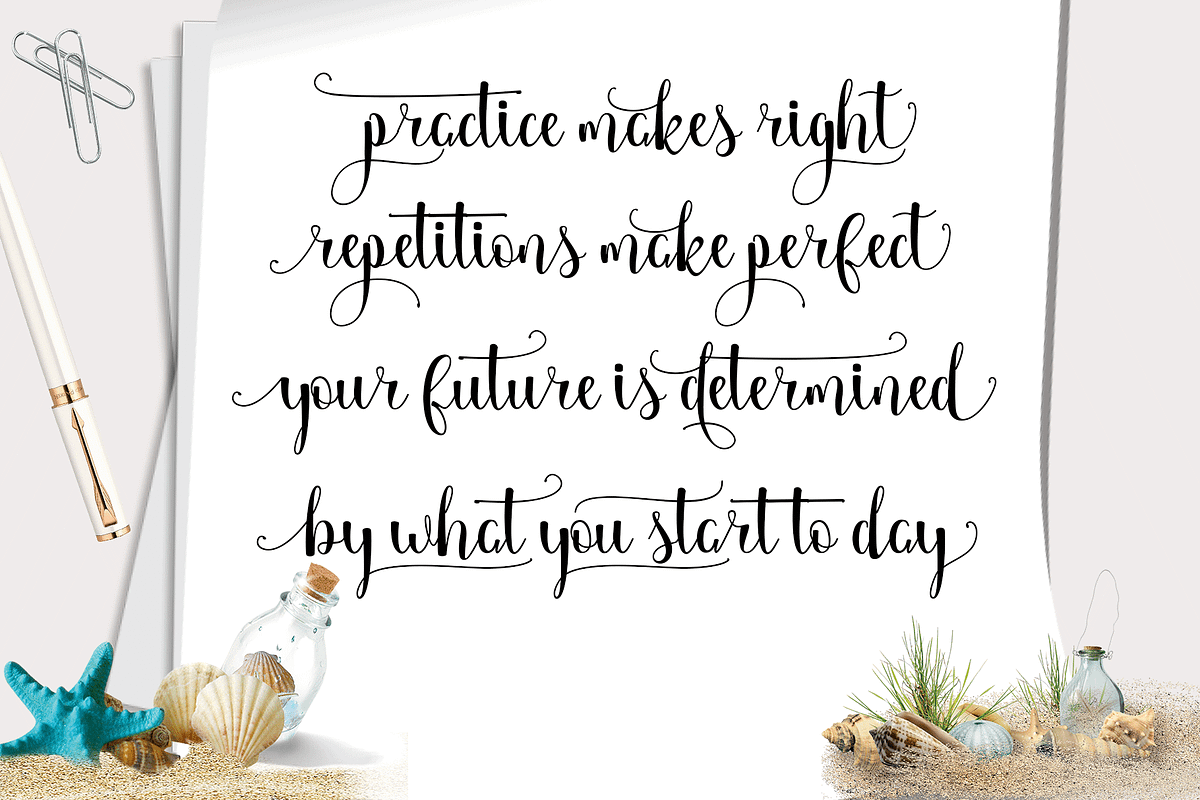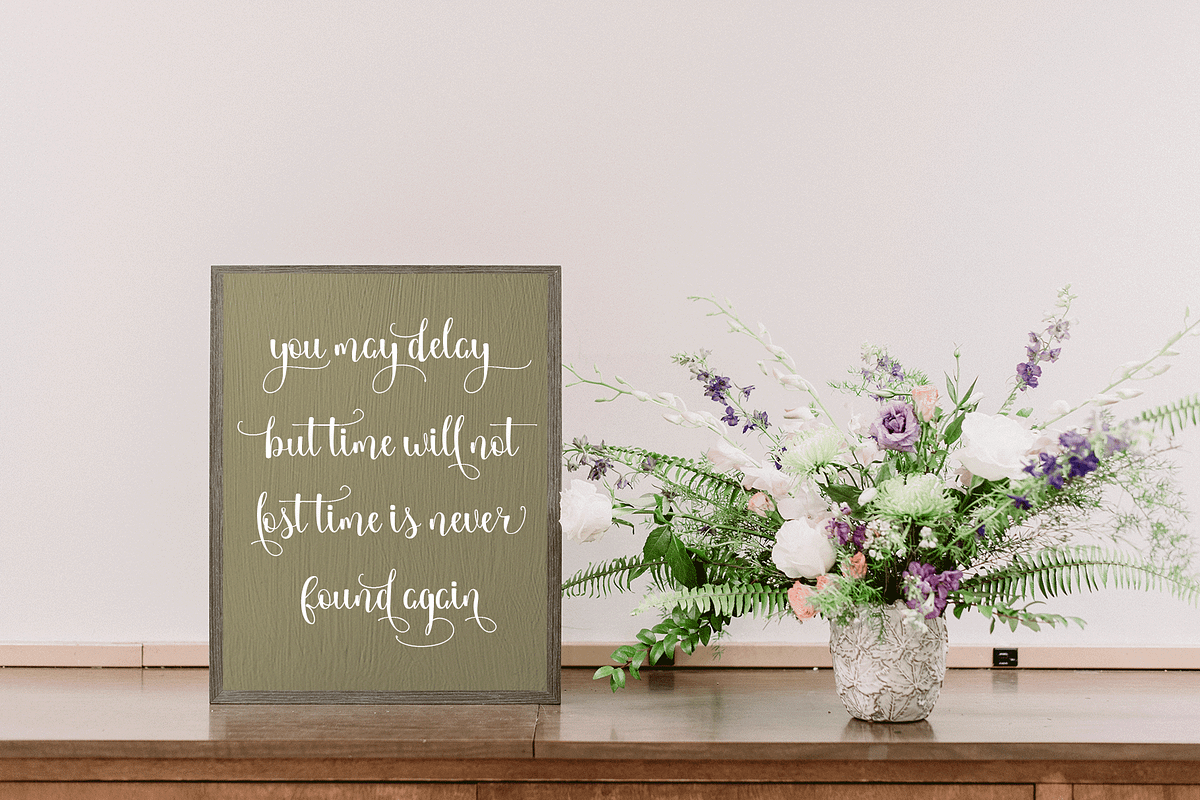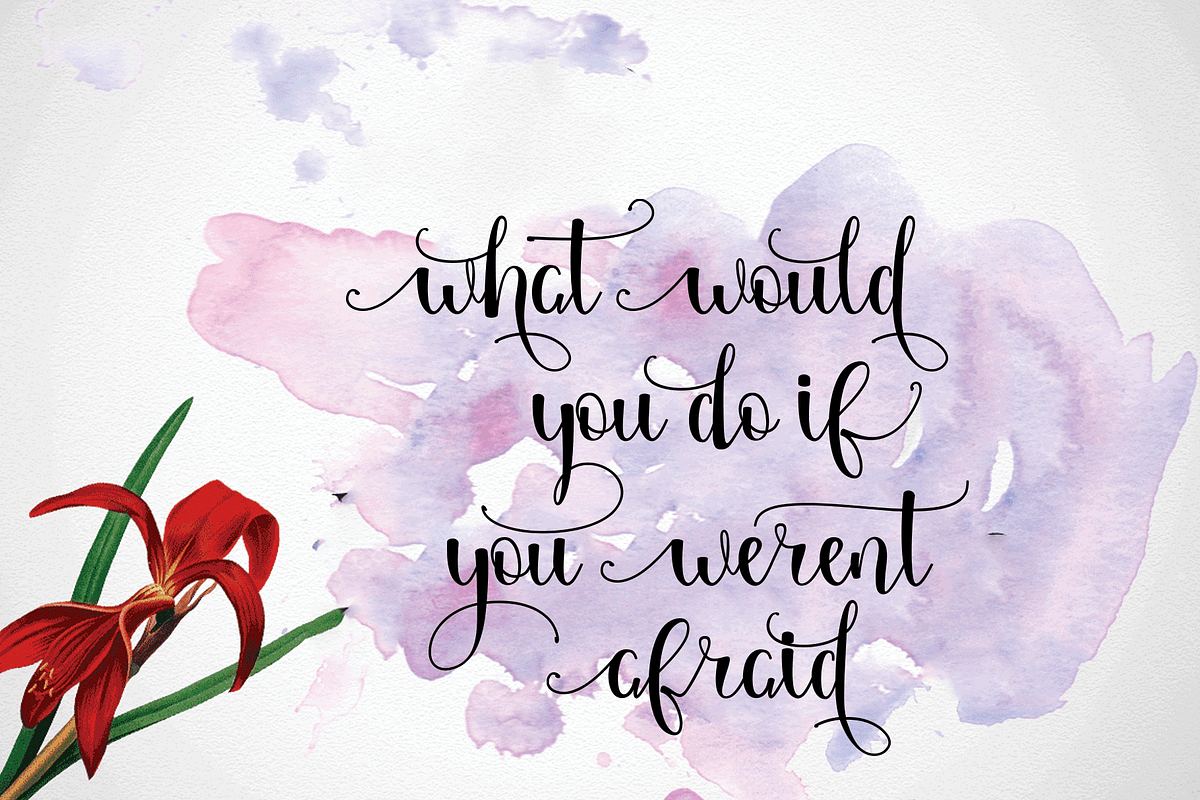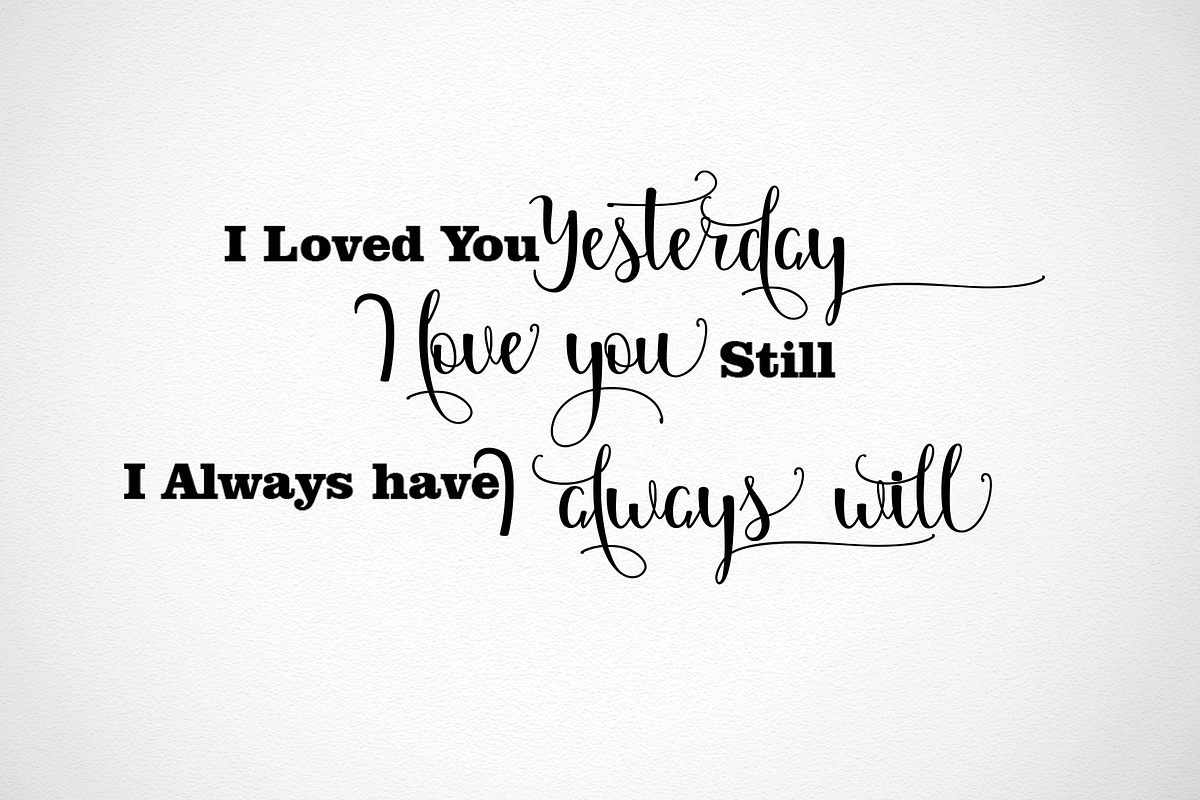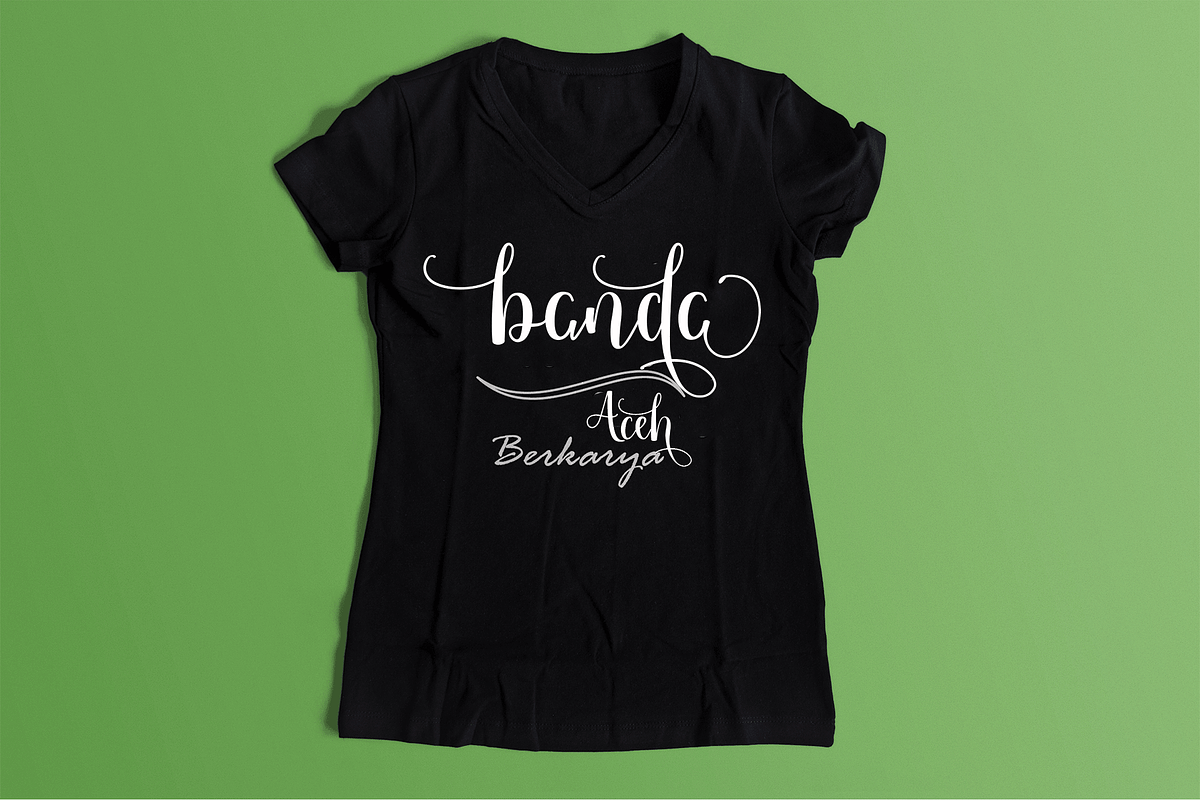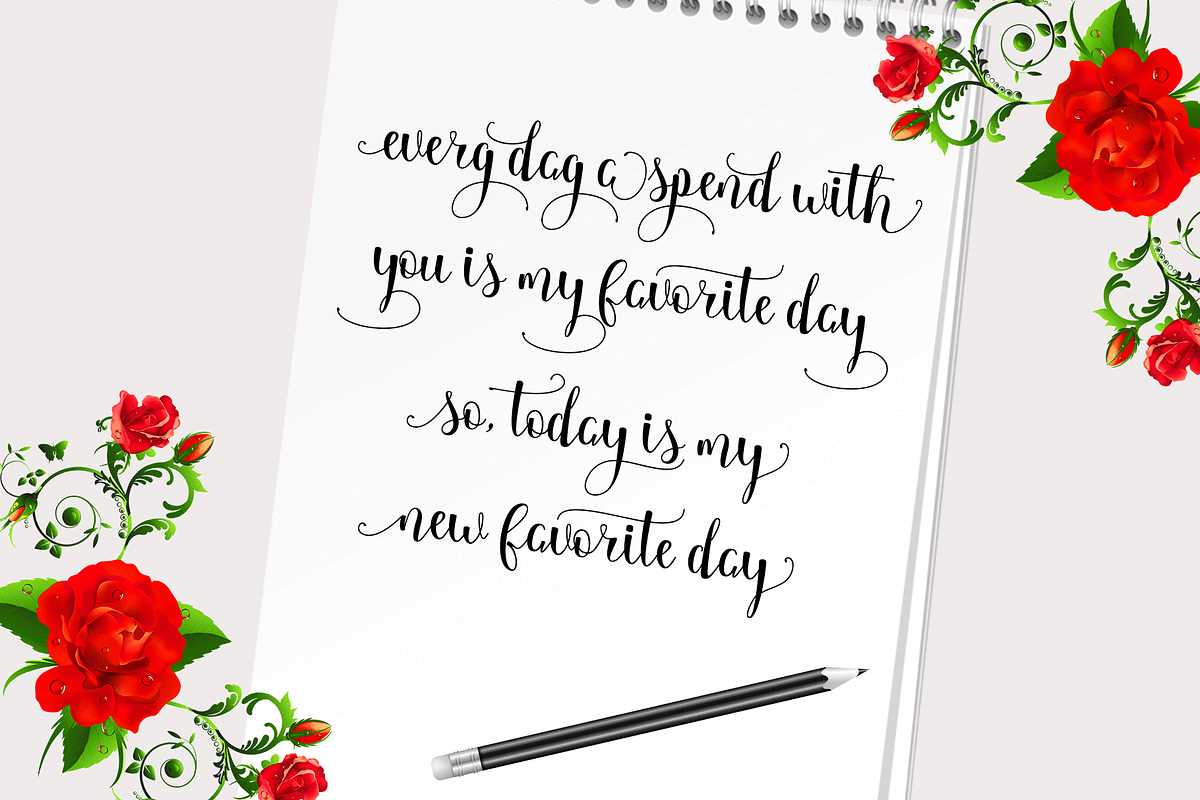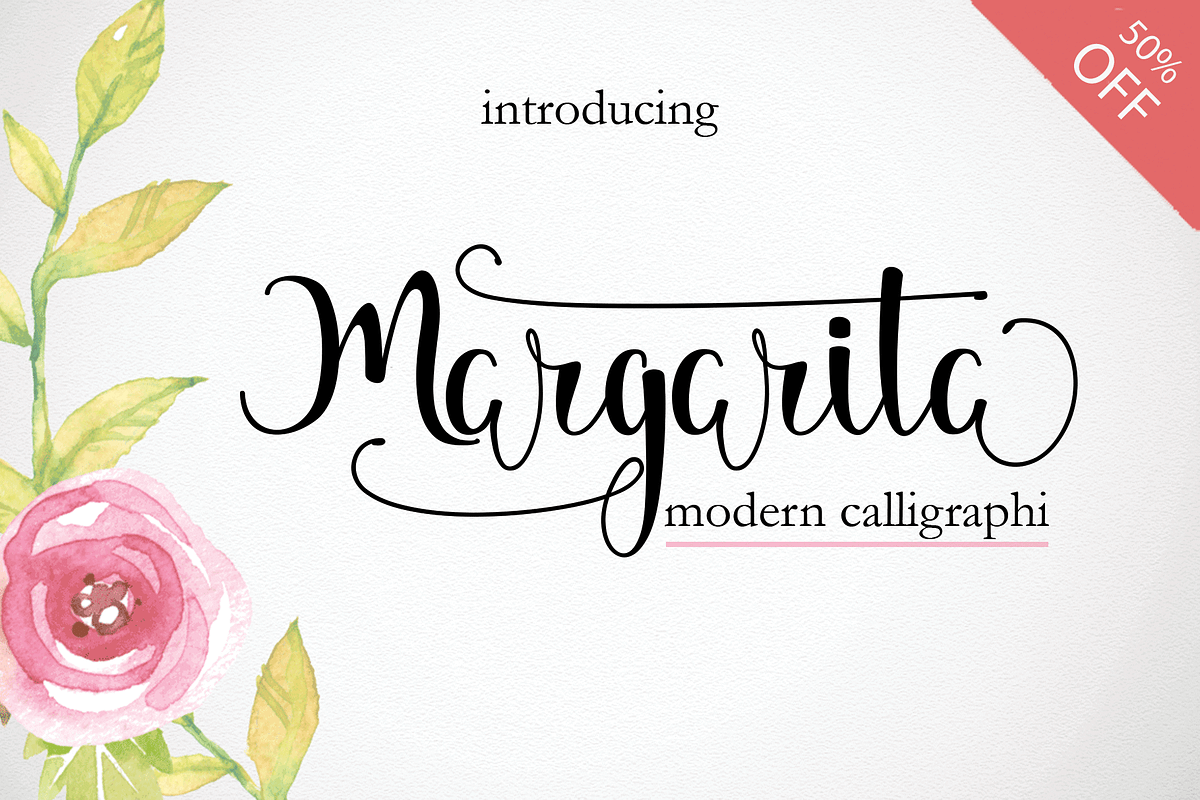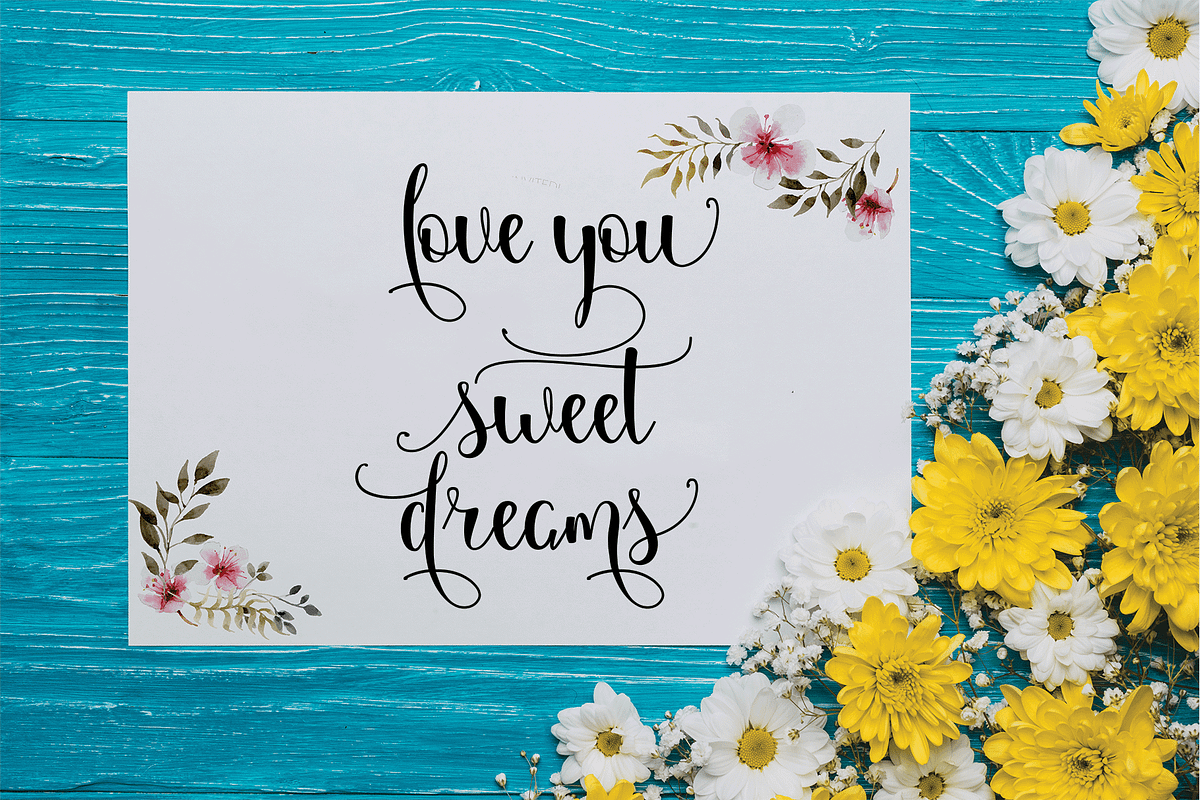
Margarita
Margarita, a work that is purely handwritten, has natural characteristics. It's perfect for invitations, signatures, blogs, social media, business cards, product brands.
Margarita is a simple font that has Stylistic standards, Stylistic Alternatives. and includes uppercase and lowercase letters, numbers and punctuation.